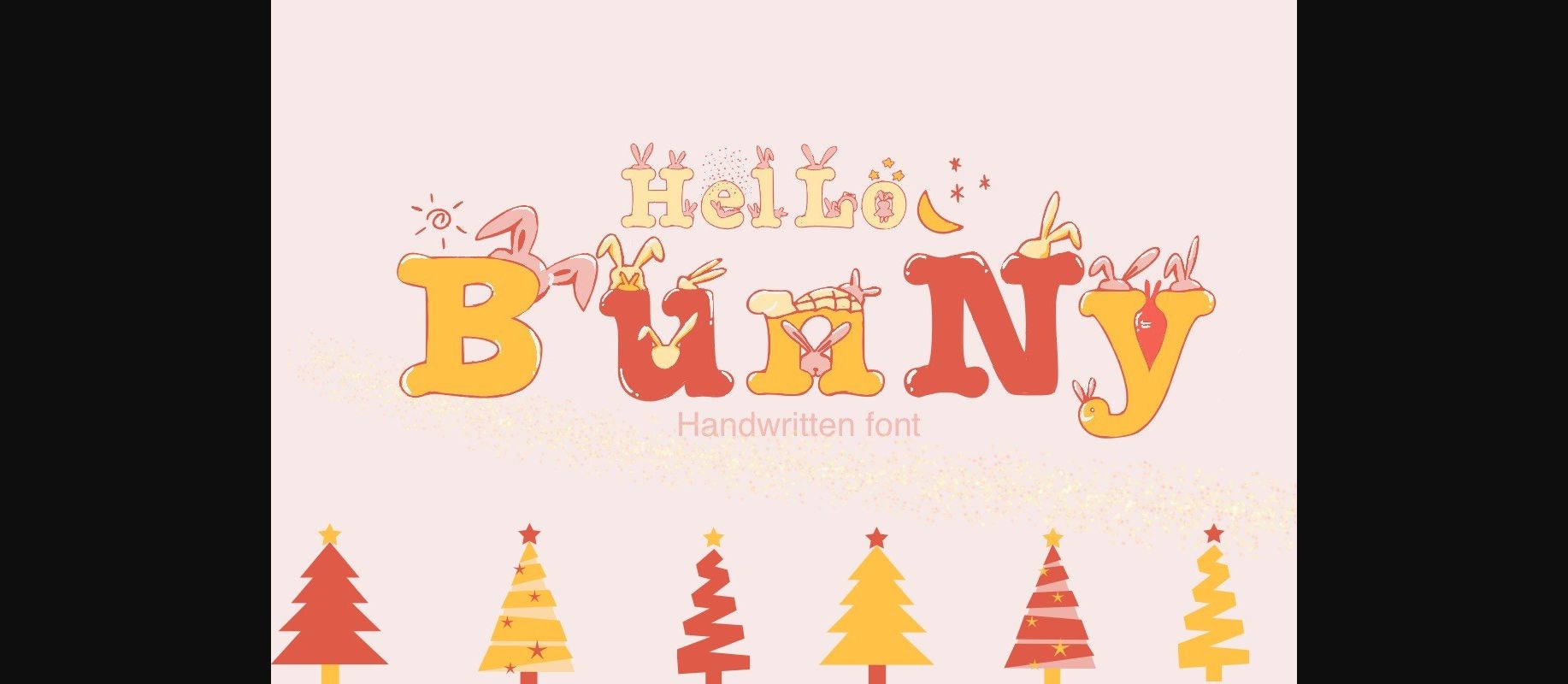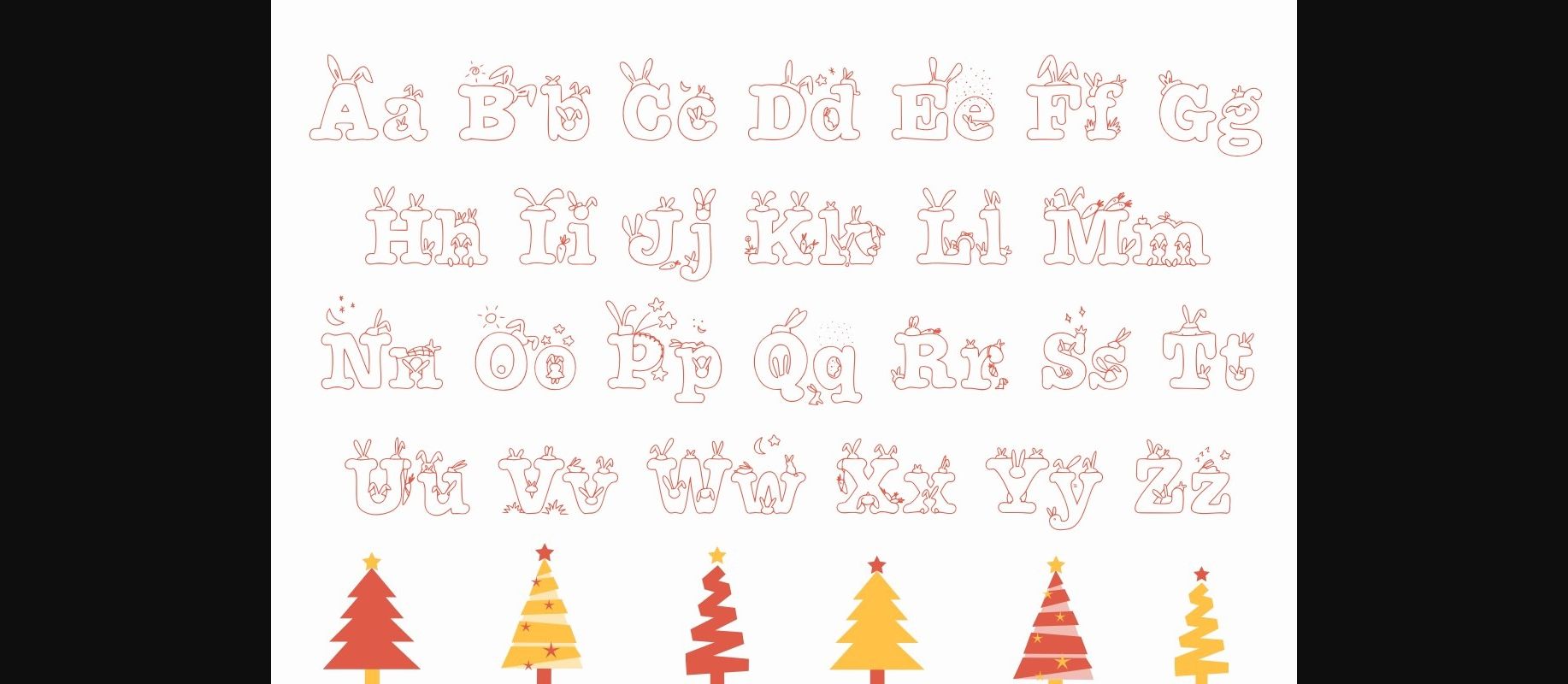
About Hello Bunny Font
Hello Bunny is a lovely and cute decorative font. Whether you’re using it for crafts, digital design, presentations, or making greeting cards, this font has the potential to become your favorite go-to font, no matter the occasion!